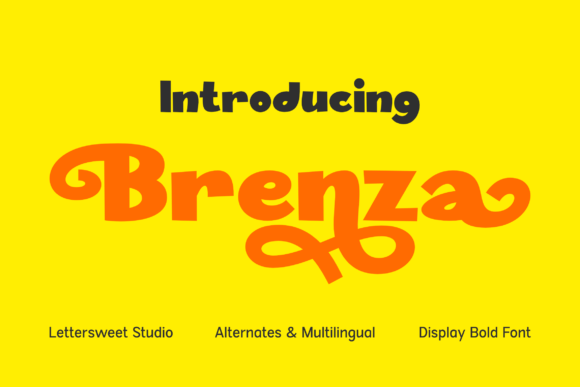
Introducing Brenza: The Bold and Playful Display Font You Need
Have you ever been working on a design project, and suddenly, you realize that it’s missing that special something? Maybe it’s a logo, a poster, or a social media graphic, but no matter what it is, you just can’t seem to find the right font to make it pop. I know I have, and it’s frustrating. But today, I’m excited to share with you a fantastic solution: Brenza, a bold and playful display font that’s sure to make your designs stand out instantly.
The Design Moment That Inspired Brenza
I recall working on a children’s book cover design, and I wanted to create a title that was both fun and eye-catching. I tried several fonts, but none seemed to capture the playful energy I was looking for. That’s when I stumbled upon Brenza, and it was love at first sight! With its thick letterforms, smooth curves, and unique decorative alternates, Brenza brings a cheerful and energetic personality to every project.
What I Love About Brenza
• ✨ Unique and playful design: Brenza’s bold and curly lines make it perfect for creating memorable branding and creative typography.
• ✅ Easily readable: Despite its bold style, Brenza remains highly readable, making it suitable for a wide range of design projects.
• 🎉 Multilingual support: Brenza supports multiple languages, making it a great choice for global design projects.
Honest Review: The Not-Perfect-but-Almost Section
While Brenza is an amazing font, there are a few minor quirks to be aware of:
• 🤔 Limited use in body text: Due to its bold style, Brenza is best used for headlines, titles, and short paragraphs. It may not be the best choice for lengthy body text.
• ⚠️ Some swashes may not work well in all contexts: While Brenza’s swashes are beautiful, they may not work well in every design context. Experiment with them to find the best fit.
The Backstory Behind Brenza
Brenza was designed by a team of creatives who wanted to create a font that would bring a smile to people’s faces. Inspired by retro charm and modern playfulness, Brenza is the perfect blend of fun and sophistication.
Is Brenza suitable for body text? While Brenza is highly readable, it’s best used for headlines, titles, and short paragraphs.
Add a bold, friendly, and distinctive touch to your next design project with Brenza — the display font that’s sure to make your designs stand out!